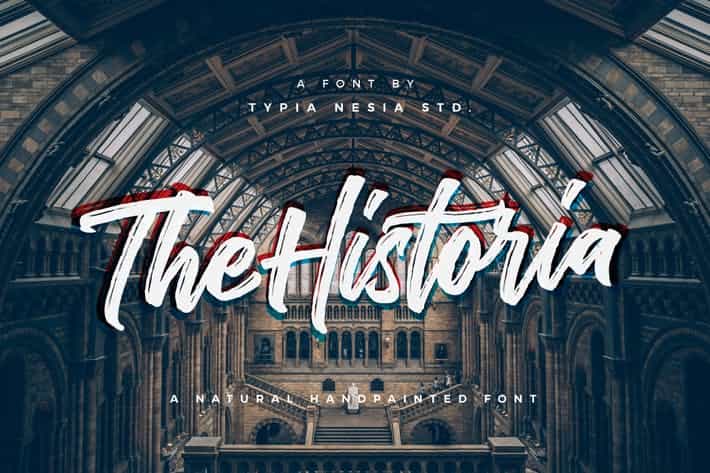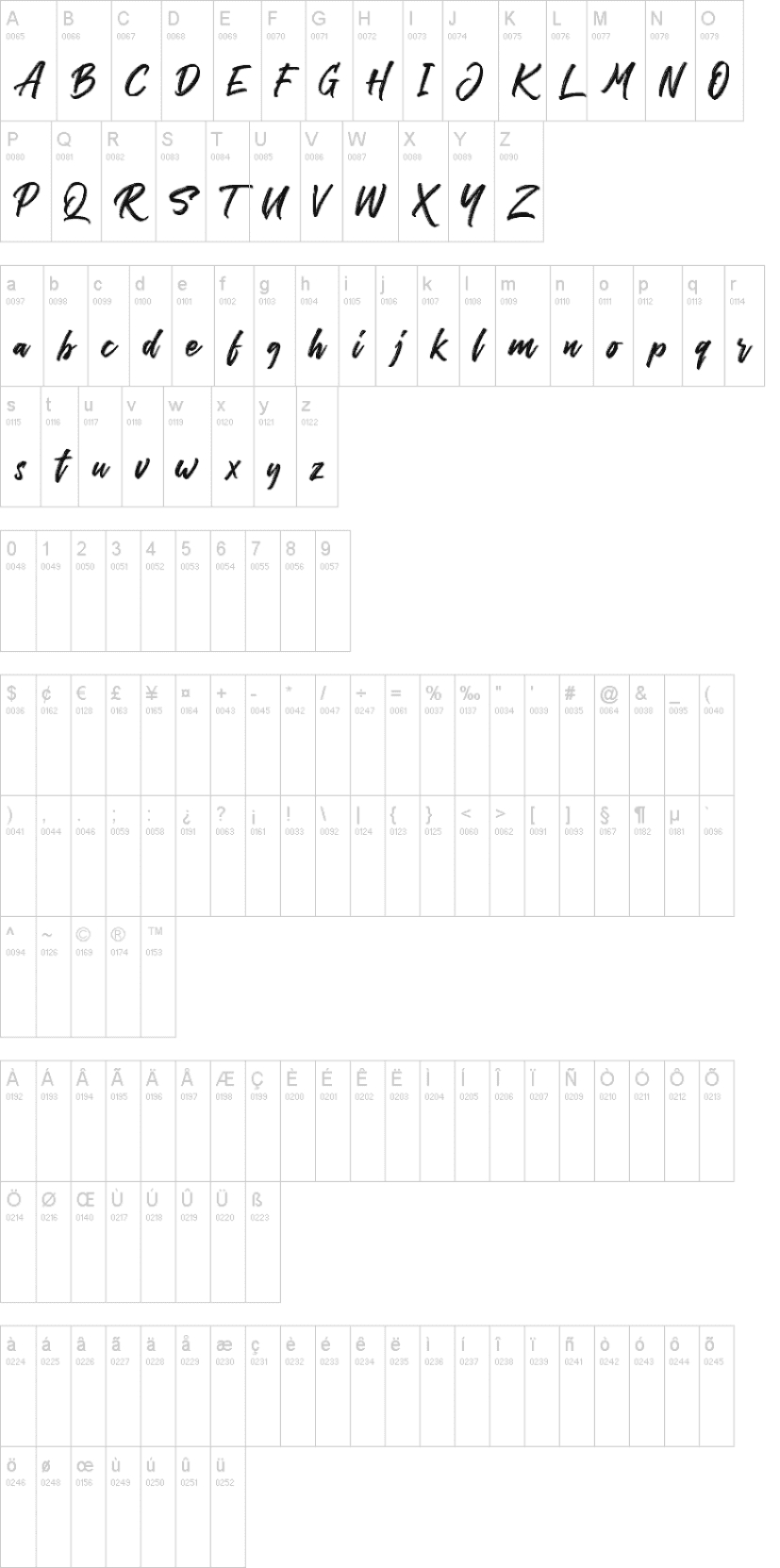
Discover The Historia Font, part of the Brush collection—a versatile and unique font perfect for adding a personal touch to your projects. Download it for free and enjoy crafting designs with style, from invitations to social media posts. This font is available exclusively for personal use, giving you the freedom to create without limits. Unlock your creativity with The Historia Font today!
If we talking about the font which is include high quality of brush font that design by Typia Nesia and this font is free for download, But it is allow only for personal use. The free version offers all the English case including the lower case letters and a few quantities of the special characters.